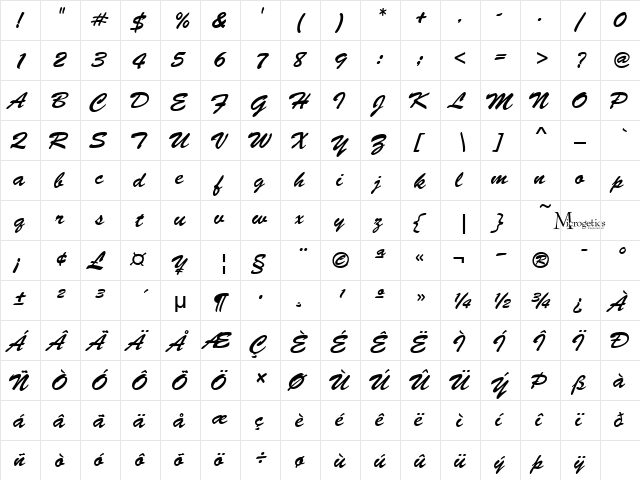
MC Angel Brush Regular
Design Context for MC Angel Brush Typeface
MC Angel Brush flows with the natural rhythm of handwritten lettering, making it ideal for designs that call for warmth and personal expression.
Font Pairing: Combine MC Angel Brush with a simple geometric sans for maximum contrast — the tension between flowing curves and clean structure is a classic typographic pairing.
Pro Tip: Use MC Angel Brush for short runs of text — names, titles, or taglines. Extended body copy in script faces tires the eye quickly.